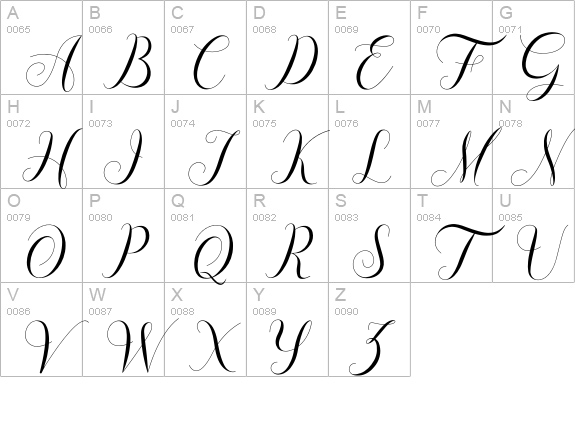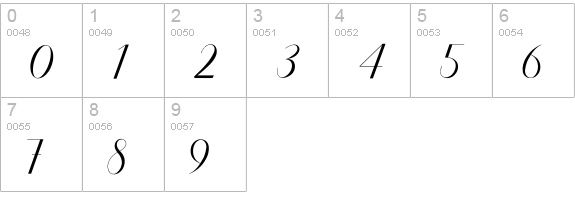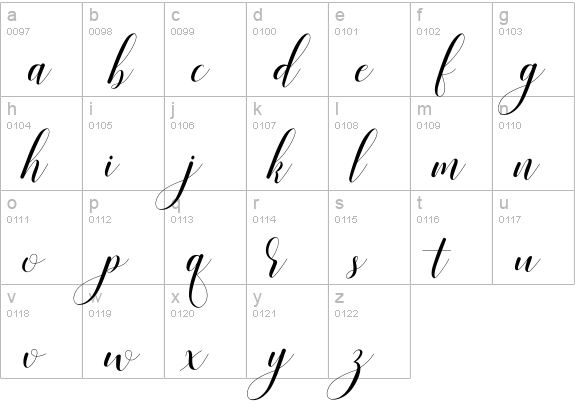
Mariana Oghawa is a free for personal use font in the Script > Calligraphy category, designed by Fana Studio. It has been downloaded 995 times and is available for Windows, Mac and Linux.
The Mariana Oghawa font is a captivating and elegant typeface that exudes sophistication and charm. Its graceful curves and unique design make it perfect for adding a touch of class to any project. This versatile font is ideal for a wide range of applications, from branding and advertising to invitations and packaging.